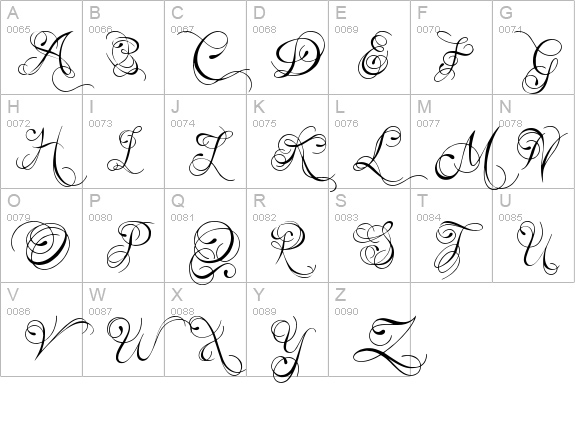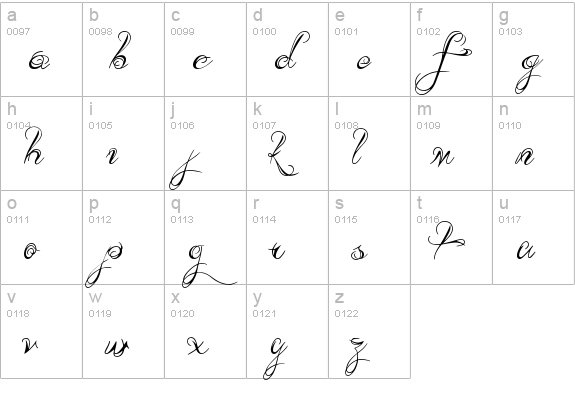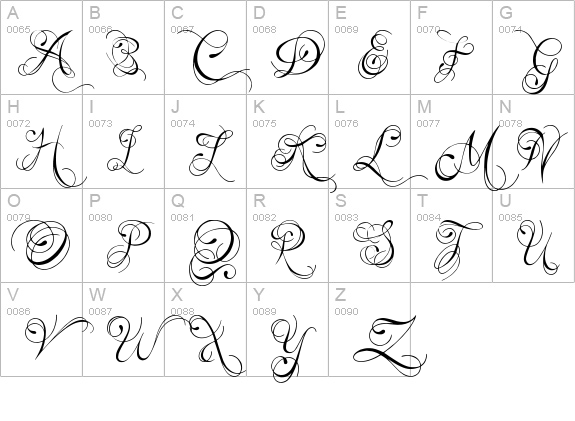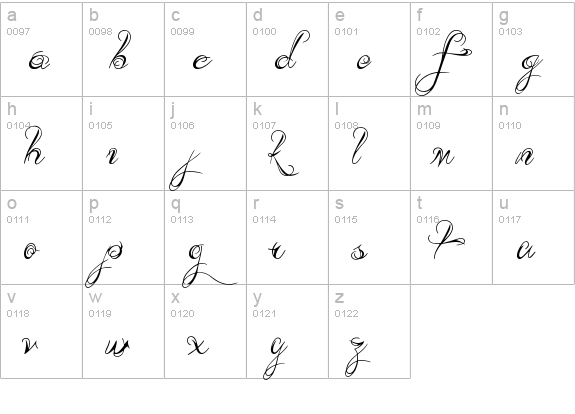
Chloe Nicole Font Details
Introducing Chloe Nicole, a beautifully crafted font that exudes elegance and sophistication. This versatile typeface is perfect for adding a touch of class to any design project, whether it be a wedding invitation, branding materials, or a stylish logo. Chloe Nicole showcases a delicate balance between classic and modern elements, making it a timeless choice that will never go out of style. With its graceful curves and refined letterforms, this font effortlessly captures attention and leaves a lasting impression. One of the best features of Chloe Nicole is that it is entirely free to download at FontsMarket.com. This means that designers and creatives alike can access this stunning font without any cost. Its availability as a free download allows for endless creative possibilities, making it an essential addition to any designer's toolkit. Whether you are a professional graphic designer or someone looking to add a touch of elegance to their personal projects, Chloe Nicole is the perfect font for you. Its versatility and timeless appeal make it suitable for a wide range of applications, ensuring that your designs stand out from the crowd. So, why wait? Download Chloe Nicole today, and let your creativity soar with this exquisite font. Experience the beauty and sophistication that this font brings to your designs, and enjoy the convenience of having it freely available at FontsMarket.com.